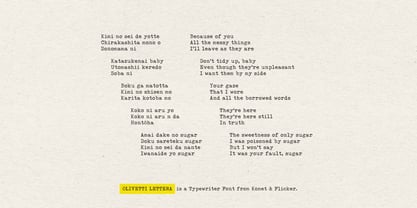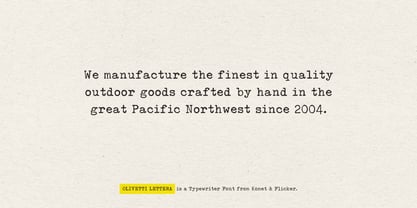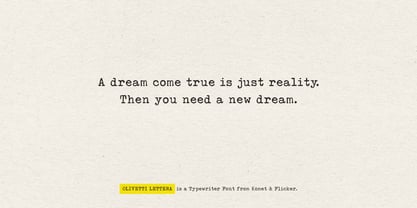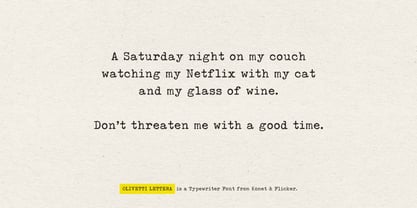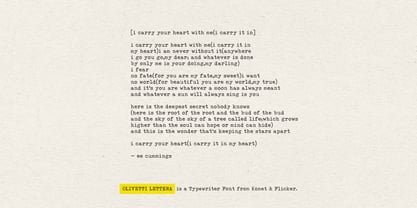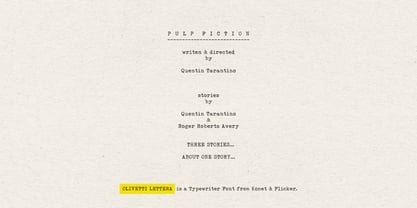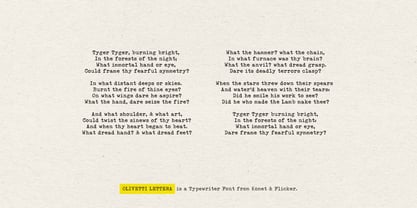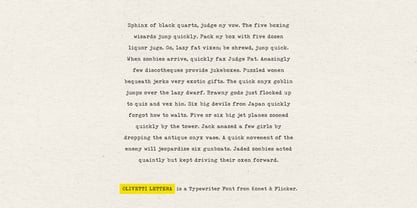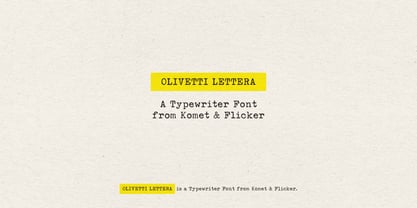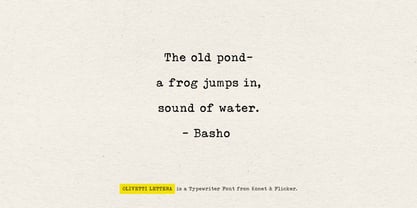
Olivetti Lettera
von Komet & Flicker
Die Schriftfamilie Olivetti Lettera wurde von David Phillips entworfen und von Komet & Flicker veröffentlicht. Olivetti Lettera enthält 1 Stile. Mehr über diese Familie
Olivetti Lettera is a monospaced serif font inspired by the timeless charm of the Olivetti Lettera 35 typewriter. Crafted to capture the mechanical elegance and rough tactile imperfection of vintage typewriters, this font delivers an authentic analog feel with every keystroke.
Bring the rhythm of a vintage typewriter to your digital pages with Olivetti Lettera – a font that clicks, clacks, and carries the spirit of analog writing into the modern world.
• Set of 20 custom connecting word glyphs
Designer: David Phillips
Foundry: Komet & Flicker
Founded in 2004 in Seattle, Washington by graphic designer and illustrator David Phillips, Komet & Flicker was started to blend David’s love of typography with functional and aesthetically pleasing fonts. Named after the memory of his beloved two cats, Komet & Flicker has grown to include a range of innovative and diverse of typefaces that blend tradition with contemporary aesthetics.